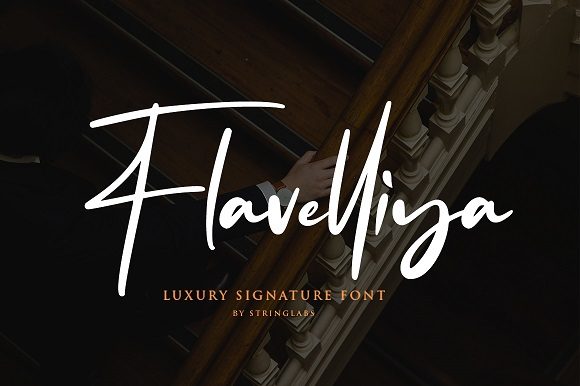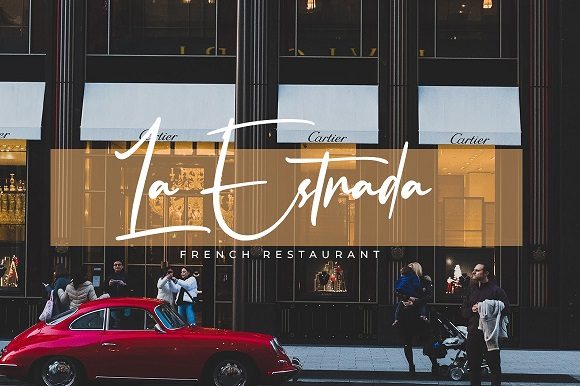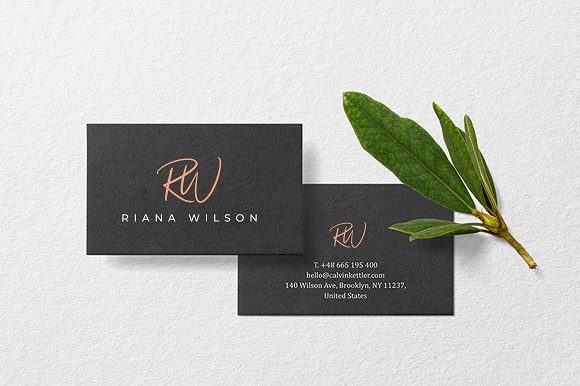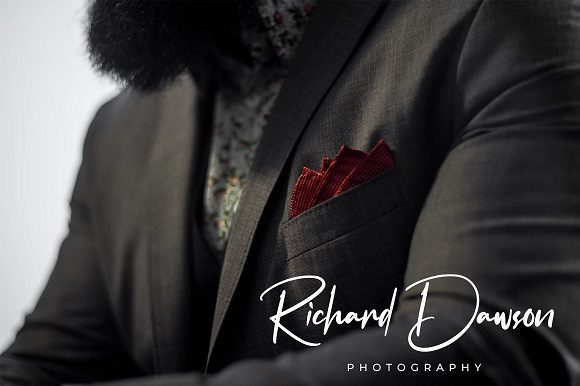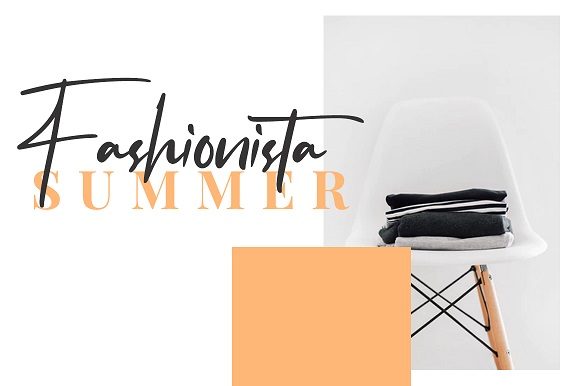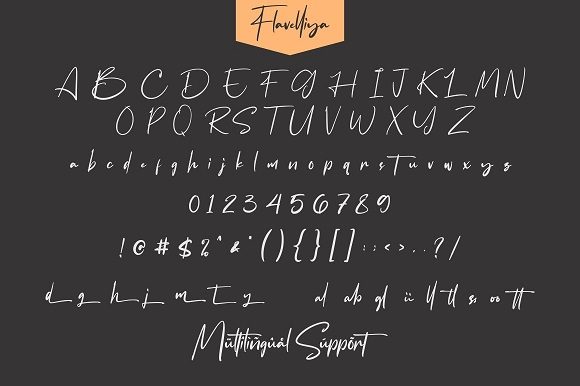
Introducing Flavellya Font: The Epitome of Luxury, Fun, and Elegance
Are you on the hunt for a font that embodies the perfect blend of luxury, fun, and elegance for your branding project? Look no further than Flavellya Font. This exquisite script font is designed to elevate your brand’s visual identity, making it an ideal choice for designers and crafters seeking to make a lasting impression.
The Essence of Flavellya Font
Flavellya Font is a masterpiece of typographic design, boasting a unique blend of sophistication and playfulness. Its elegant strokes and curves evoke a sense of luxury, while its fun and lively undertones add a touch of approachability. This font is meticulously crafted to cater to a wide range of design needs, from high-end branding and advertising to packaging and editorial design.
Why Choose Flavellya Font?
- Unparalleled Versatility: Flavellya Font is designed to be versatile, making it suitable for various design applications, including logos, business cards, brochures, and social media graphics.
- Luxurious and Elegant: The font’s sophisticated design elements make it perfect for high-end branding projects, adding a touch of luxury and refinement to your brand’s visual identity.
- Fun and Playful: Flavellya Font’s fun undertones ensure that your design doesn’t come across as too formal or boring, making it ideal for brands that want to showcase their playful side.
- Easy to Read: Despite its elegant and cursive nature, Flavellya Font remains highly legible, ensuring that your message is conveyed clearly and effectively.
Design Applications of Flavellya Font
Flavellya Font’s adaptability makes it an excellent choice for a wide range of design applications. Here are a few examples:
- Branding and Identity: Use Flavellya Font to create stunning logos, business cards, and letterheads that reflect your brand’s luxurious and elegant personality.
- Advertising and Marketing: Add a touch of sophistication to your ad campaigns and marketing materials with Flavellya Font, making your brand stand out in a crowded market.
- Packaging Design: Elevate your product packaging with Flavellya Font, giving your brand a premium and high-end feel.
- Editorial Design: Use Flavellya Font in your editorial designs, such as magazines, newspapers, and blogs, to add a touch of elegance and sophistication.
Tips for Using Flavellya Font Effectively
To get the most out of Flavellya Font, consider the following tips:
- Pair with Neutral Fonts: Combine Flavellya Font with neutral fonts to create a harmonious and balanced design.
- Experiment with Colors: Play around with different colors to find the perfect combination that complements Flavellya Font and enhances your brand’s visual identity.
- Use it Sparingly: While Flavellya Font is stunning, it’s essential to use it sparingly to avoid overwhelming your design.
Flavellya Font is a game-changer for designers and crafters seeking to create luxurious, fun, and elegant designs. Its versatility, legibility, and sophistication make it an ideal choice for a wide range of design applications. Whether you’re working on a high-end branding project or a personal craft project, Flavellya Font is sure to elevate your design to new heights.